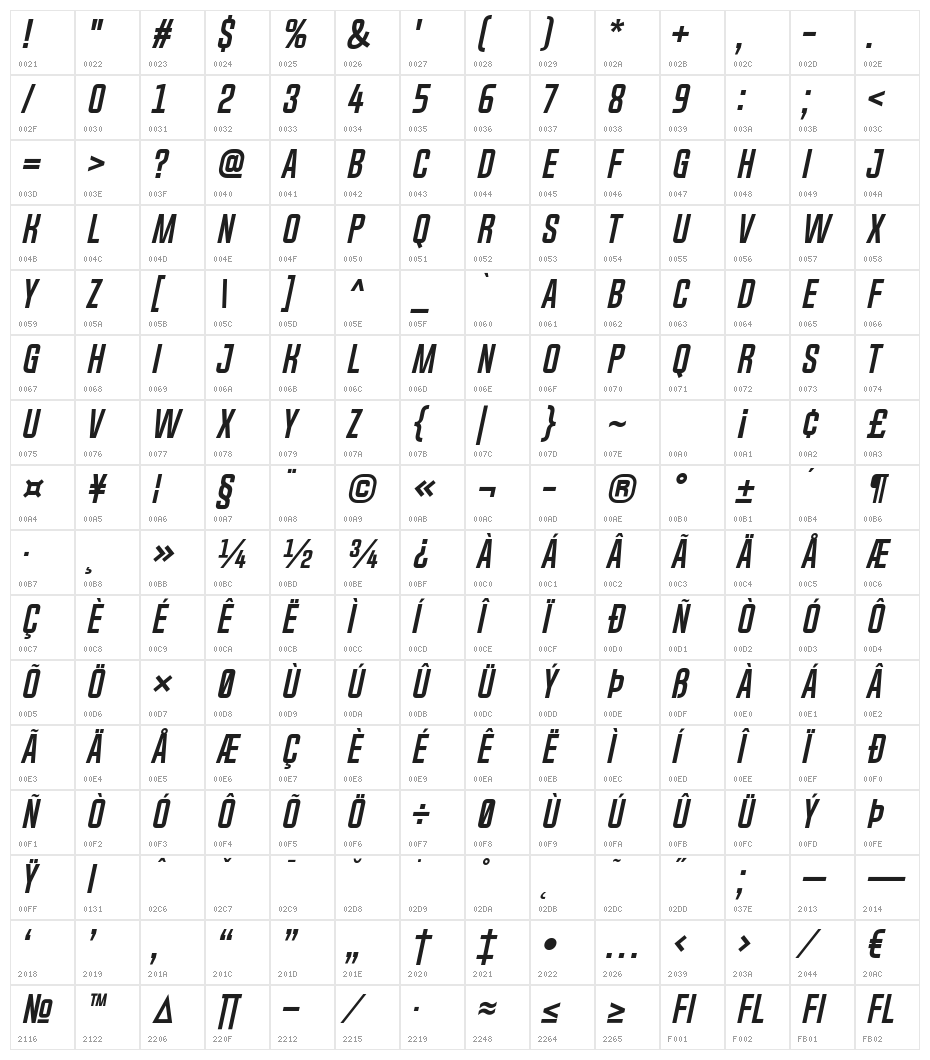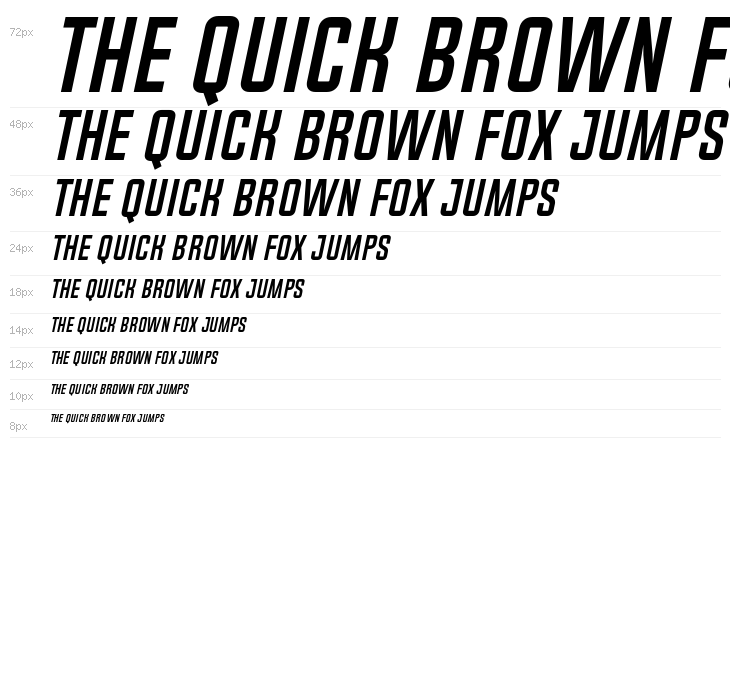
Chosence Bold Italic Font
Chosence Bold Italic Description
This font features a bold and italicized style, characterized by its strong, angular lines and dynamic slant. The uppercase and lowercase letters maintain a consistent weight, providing a sense of uniformity and strength. The numerals are equally bold, ensuring they stand out clearly. Special characters are designed with the same attention to detail, making them easily recognizable. The overall design is modern and assertive, suitable for making a strong visual impact.